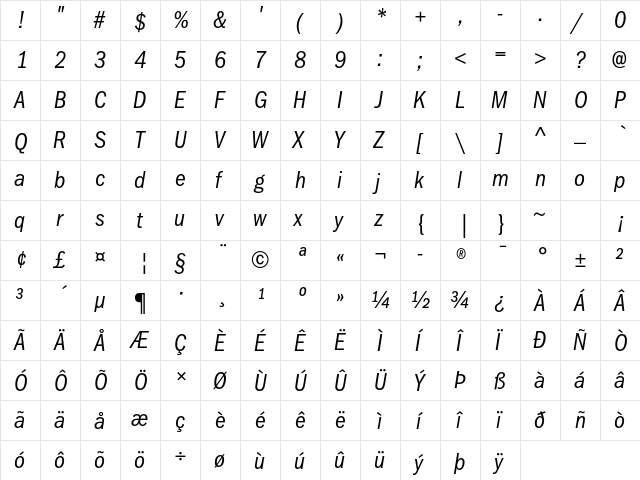
ITC Franklin Gothic Std Book Condensed Italic Font Preview
| Designer | Vic Caruso |
Design Context for ITC Franklin Gothic Std Typeface
ITC Franklin Gothic Std takes a clean, functional approach — its unadorned letterforms prioritise legibility and work reliably across screen and print environments. Its italic angle brings a sense of urgency and motion to the letterforms. The condensed width makes it efficient for tight spaces without sacrificing legibility.
Font Pairing: Works well alongside a characterful serif or display font that can carry the expressive load while ITC Franklin Gothic Std handles the functional copy.
Pro Tip: Try ITC Franklin Gothic Std in all-caps with moderate tracking for navigation and label copy — it performs well in systematic UI contexts.